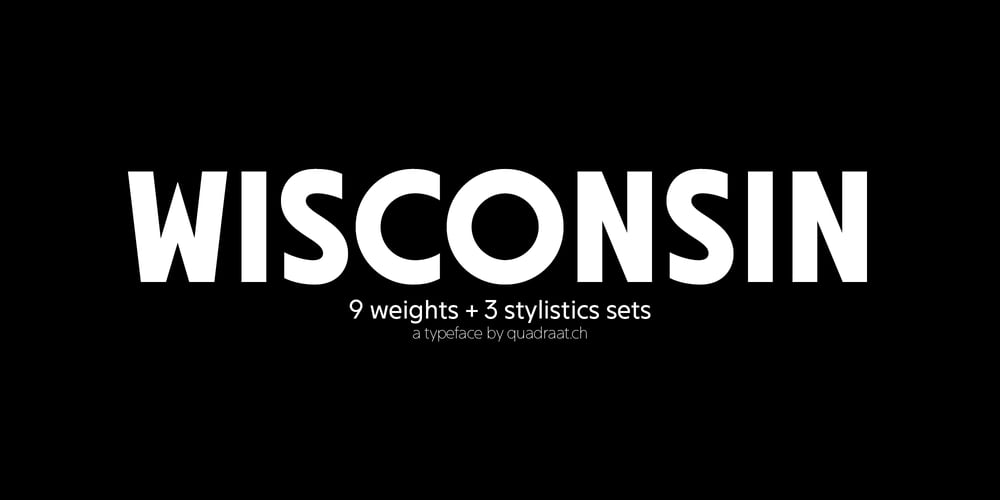
Wisconsin Font Family was designed by Raphael Picard and published by QUADRAAT. Wisconsin contains 9 styles and family package options. Wisconsin is a complete character set including three stylistic sets in nine weights offering a new singular aesthetic to each. Three differents attitudes in one font, a real typographic weapon.Supports all latin languages